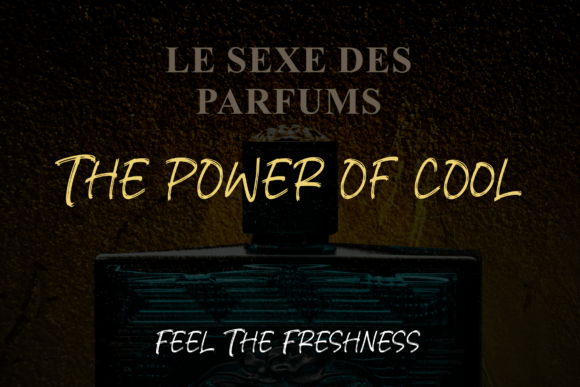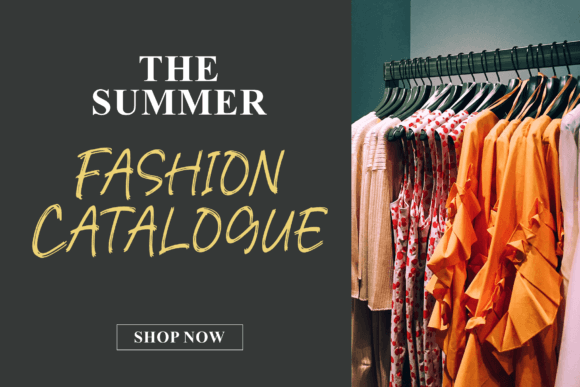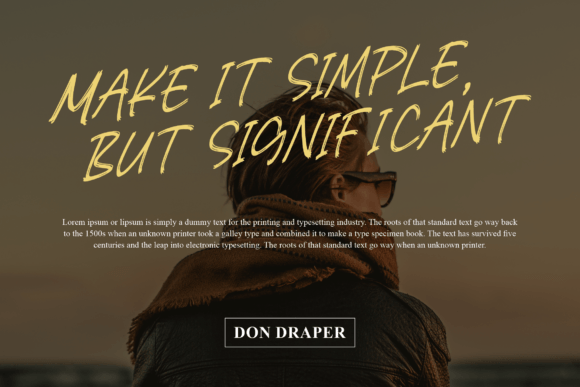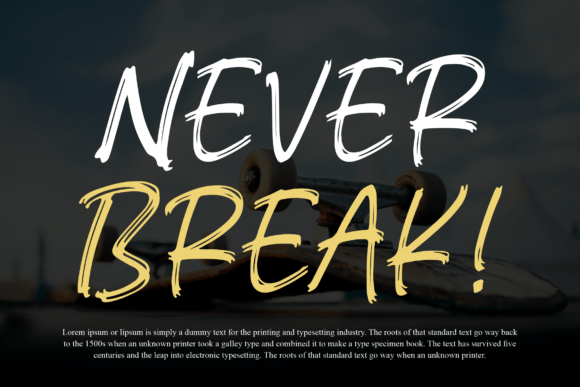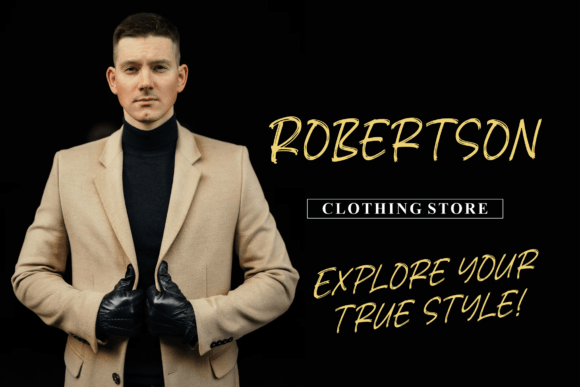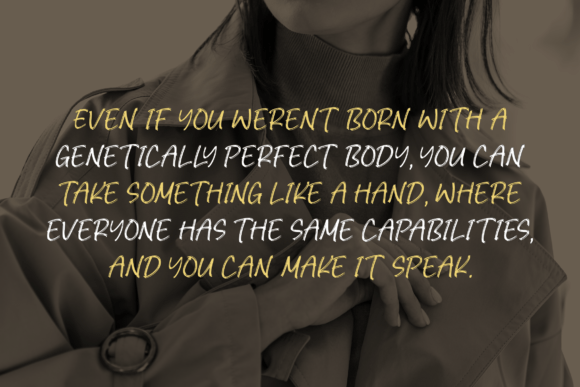
Introduction to Holiwing Font
Have you ever been working on a creative project, pouring your heart and soul into it, only to realize that the perfect font is missing? That’s exactly what happened to many designers when they discovered the Holiwing Font. This stunning modern handwritten font has been a game-changer for designers, adding a touch of elegance and sophistication to any project.
With its beautiful script taste, the Holiwing Font is perfect for logos, branding projects, homeware designs, product packaging, and more. Whether you’re looking for a high-quality design resource or a free download, the Holiwing Font has got you covered. Its transparent background and versatility make it an ideal choice for any creative project, from photography to special events.
Key Features of Holiwing Font
- High-quality font with a unique, colorful design perfect for creative projects.
- Transparent background, making it easy to layer over images or videos.
- Designed as a design resource for digital artists, graphic designers, and creatives.
- Perfect for use in a variety of creative projects, including digital art, graphic design, and social media graphics.
Honest Review: Holiwing Font
I recently had the opportunity to work with the Holiwing Font, a popular design resource for creative projects. The first thing I noticed was the high quality of the font, with crisp and clear lines that make it perfect for digital and print applications. One of the standout features of this font is its ability to work seamlessly with a transparent background, allowing for a clean and modern aesthetic.
- ✨ High quality design with crisp lines
- ✨ Suitable for digital and print applications
- ✨ Works well with transparent background
- ⚠️ Limited character set, may not be suitable for complex text
- ⚠️ May not be as versatile as some other design fonts
Overall, I was impressed with the Holiwing Font and its potential for creative projects. While it may not be perfect for every use case, it’s a great addition to any design resource library. The free download option is also a major plus, making it accessible to designers of all levels.
Tips for Getting the Most Out of Holiwing Font
Use the Holiwing Font for high-quality design projects, such as logos, brochures, and business cards. Experiment with different font sizes, colors, and combinations to achieve the desired effect. You can also use the Holiwing Font as a design resource for creative projects, such as graphics, infographics, and presentations.
The Holiwing Font is ideal for a variety of design projects, including:
– Logos and branding materials
– Business cards and brochures
– Graphics and infographics
– Presentations and reports
Alternatives to Holiwing Font
The Great Vibes Font is a beautiful, handwritten font ideal for creative projects that require a touch of elegance and sophistication. It features a high-quality design with a transparent background, making it perfect for backgrounds and overlays. Great Vibes Font is available for free download, making it a valuable design resource for designers.
Compared to Holiwing Font, Great Vibes Font offers a more refined and sophisticated look, making it suitable for high-end creative projects. While Holiwing Font is more playful and fun, Great Vibes Font is more versatile and can be used in a variety of contexts.
The Alex Brush Font is a beautiful, cursive font that is perfect for creative projects that require a touch of romance and elegance. It features a high-quality design with a transparent background, making it ideal for backgrounds and overlays. Alex Brush Font is available for free download, making it a valuable design resource for designers.